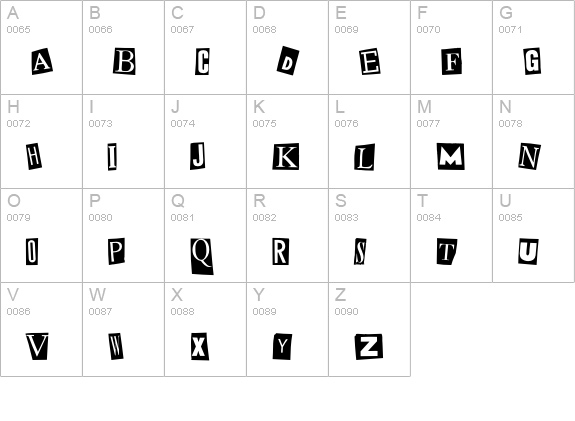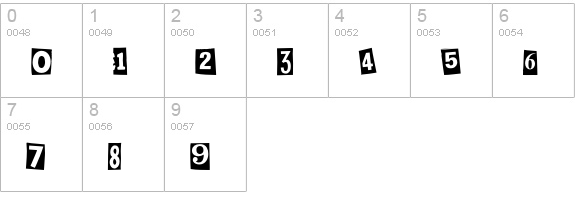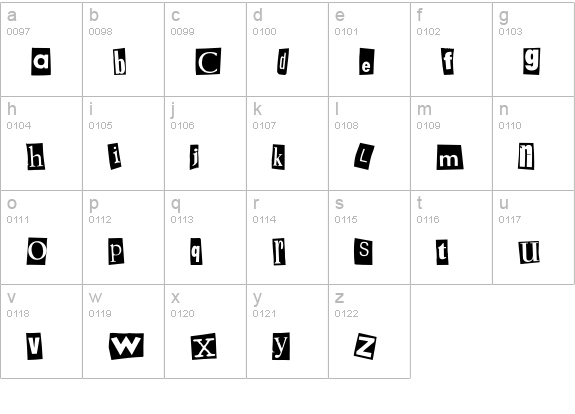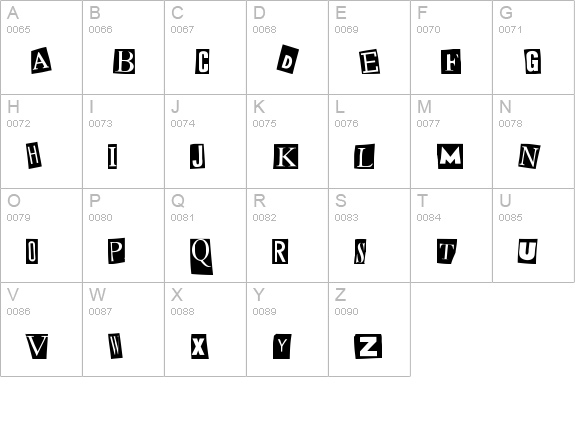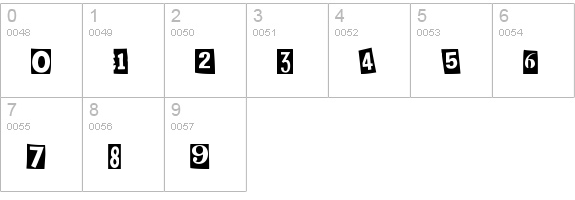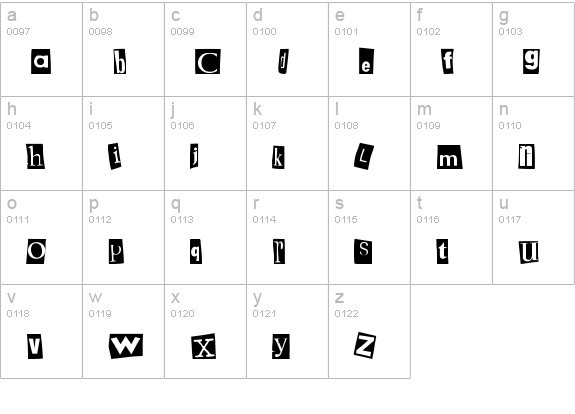
MysteryEF-Black is a maximum-weight, dramatic variant in the MysteryEF typeface family \xE2\x80\x94 well suited to maximum-impact headlines, posters, and packaging.
MysteryEF-Black font is a captivating and enigmatic typeface that exudes an aura of intrigue and sophistication. With its bold and mysterious design, this font is perfect for creating eye-catching headlines, posters, and branding materials that demand attention. What makes MysteryEF-Black font even more appealing is that it is available for free download at FontsMarket.com. This means that you can easily add this unique and stylish font to your collection without any cost. Embrace the allure of the unknown with MysteryEF-Black font and elevate your designs to a whole new level.